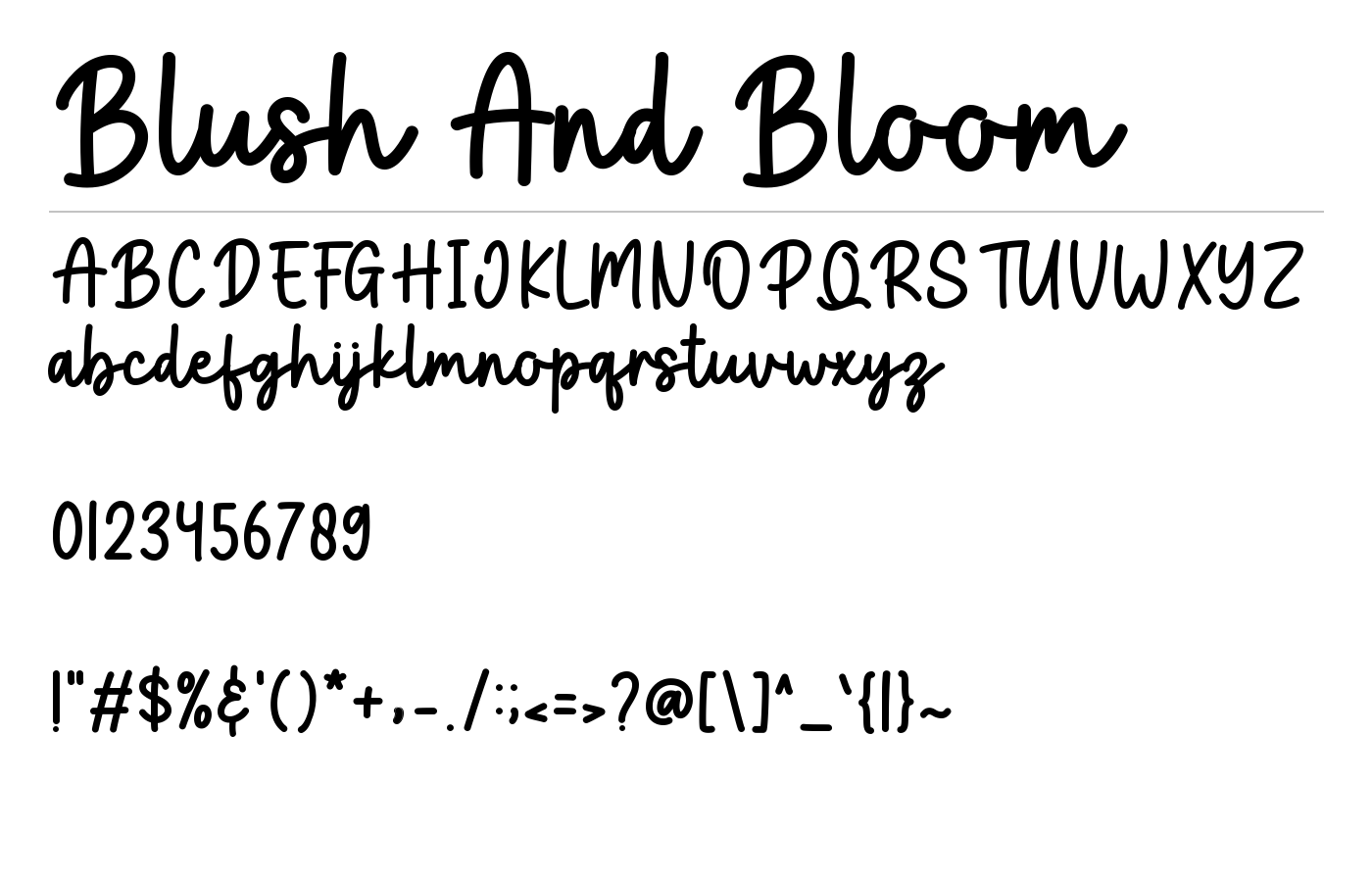
Blush And Bloom is a lively handwritten script font with a friendly and casual personality, featuring smooth, rounded strokes and moderate contrast. Its flowing letterforms and connected lowercase characters give it a warm, approachable feel, making it perfect for creative projects, invitations, branding, and any design that seeks a personal touch. This font works especially well in logos, social media graphics, and packaging where a playful yet polished look is desired.
Blush And Bloom Font
About Blush And Bloom Font